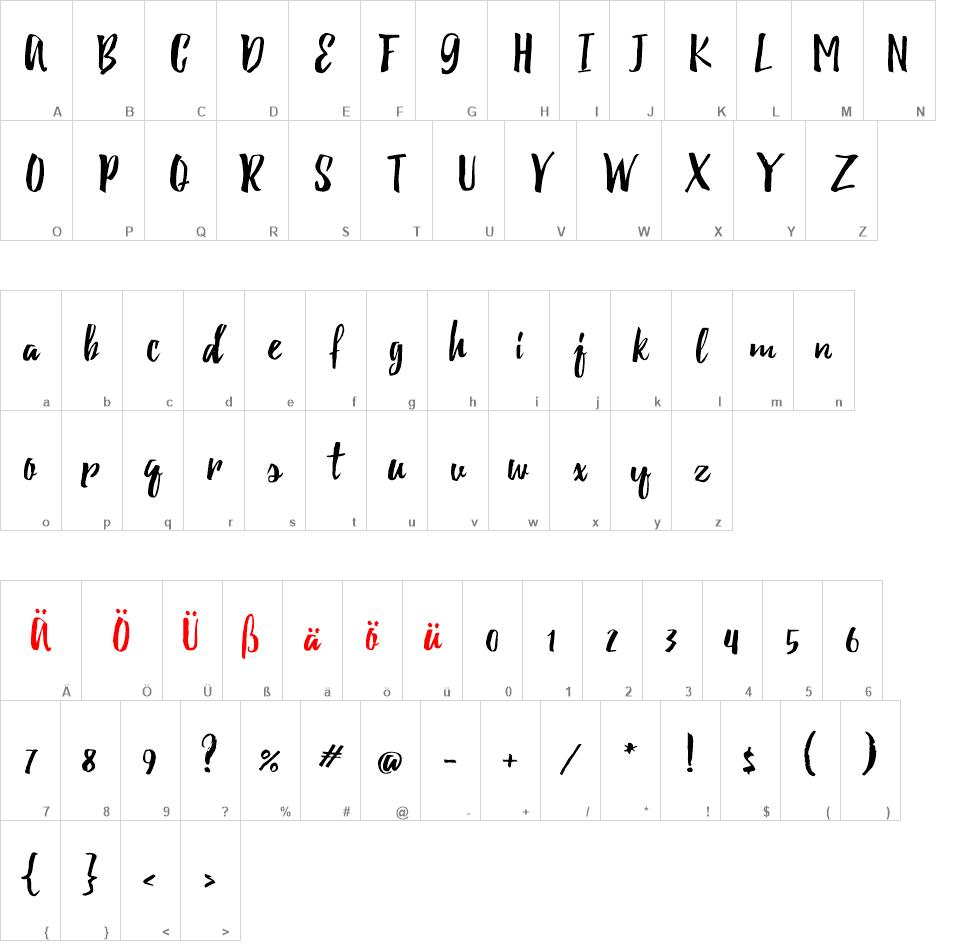
Beacon
Beacon font
Beacon
Beacon is latest Free font best for any Fancy graphics and headings.Beacon is hand drawn professional Font.Front released by iTypeface and available for personal and commercial use.